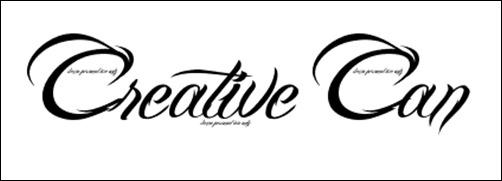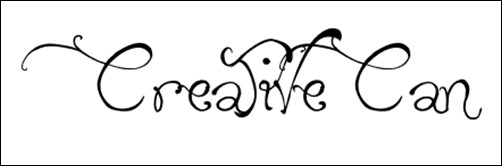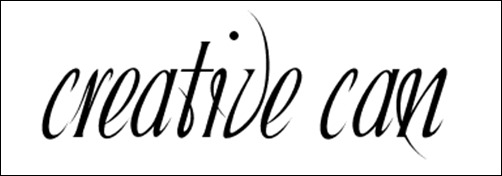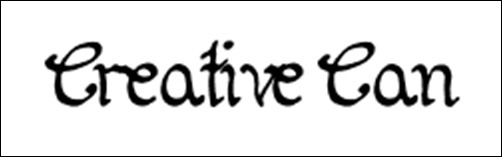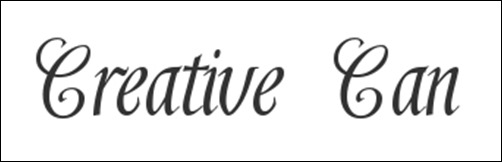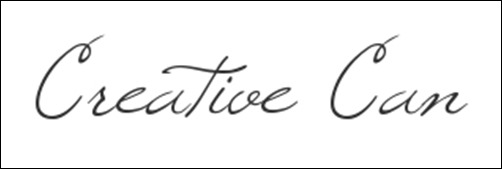
During the process of preparing these things, the wedding couple has to figure out the right typefaces, which will be printed on the wedding invitations and other items. At present, the process of selecting wedding fonts in advance is a less tedious process for the bride and groom. The reason is that there are many websites that are offering free wedding fonts.
Wedding fonts should be one of your main concerns as you are getting ready for a wedding event. This would ensure that the reply cards, invitations and wedding stationery that should be sent out in advance are taken care of.
However, considering the wide variety of wedding fonts that are available it is not always easy to choose the best ones. To help you get started we have decided to publish this list of more than 30 wedding fonts that you can use at no cost. Each of the wedding invitation fonts I have handpicked for you are elegant and distinctive, ensuring that you will get a fancy script font, no matter what your taste may be. Also do not forget to plan for a online wedding gallery where you can upload the images, menues, speeches and more. from the lovely wedding day.
Allura font – View Font
Champignon – View Font
English
Rechtman font – View Font
Precious font – View Font
The Dreamer font – View Font
Great Vibes font – View Font
Ibleum – View Font
Alex Brush font – View Font
Hanford Script font – View Font
Fortunaschwein
SCRIPTINA – View Font
Shardee
Chocolate Dealer font – View Font
Blessed Day – View Font
Shit Happens font
Quigley Wiggly font – View Font
Echinos Park Script PERSONAL US font – View Font
CoventryScriptFLF font – View Font
QUILLINE SCRIPT THIN – View Font
Shotgun Wedding – View Font
Edwards Wedding – View Font
Chopin Script – View Font
Gessele Font – View Font
RegencyScriptFLF Font – View Font
CAC Champagne
Billy Argel – View Font
WINDSONG – View Font
Schnitger 1680 – View Font